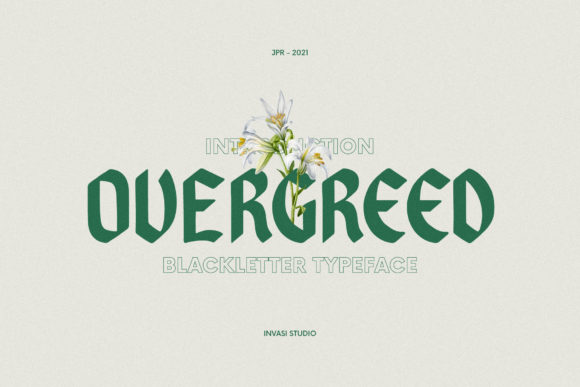
Introducing the Overgreed Font, a captivating and uniquely designed blackletter font that is guaranteed to take your creative projects to new heights. Created by invasistudio, this font is the perfect choice for anyone looking to make a bold statement and leave a lasting impression.
With its distinct and eye-catching design, Overgreed is the best font for a web page that aims to captivate and engage users. Its intricate details and elegant curves make it a standout choice for various creative endeavors. Whether you're designing cards, branding materials, labels, or anything in between, this font will bring your vision to life in the most captivating way.
Embrace the power of Overgreed and watch as your favorite creations come to life with a touch of sophistication and elegance. Its versatility allows it to adapt to any project, making it the perfect companion for designers, artists, and entrepreneurs alike. Add it to your toolkit and let your imagination run wild.
With Overgreed, your designs will stand out from the crowd, leaving a lasting impact on your audience. Its bold and commanding presence exudes confidence and professionalism, making it an ideal choice for those who strive for excellence in their work. Don't settle for ordinary fonts when you can have the extraordinary.
Unleash your creativity and explore the endless possibilities that Overgreed has to offer. Its rich character set and extensive language support ensure that you can express yourself in any language or style. Break free from the limitations of conventional fonts and let Overgreed be your passport to a world of artistic expression.
In conclusion, the Overgreed Font is a must-have for anyone in search of a font that combines style, versatility, and impact. Its unique design will captivate your audience and leave them in awe of your creative prowess. Step into the world of Overgreed and unlock a whole new level of design possibilities.